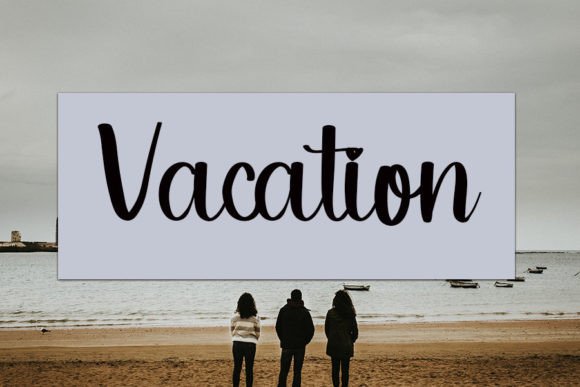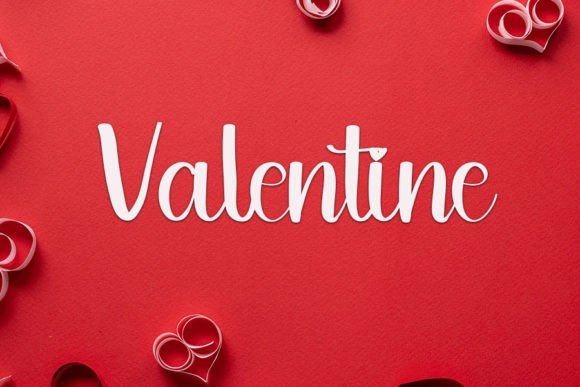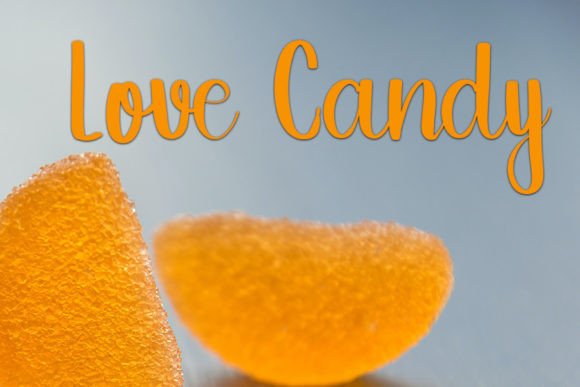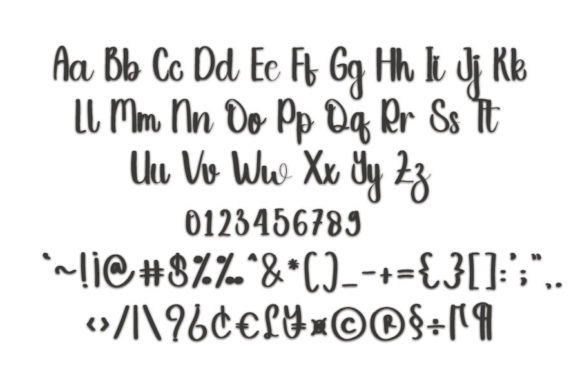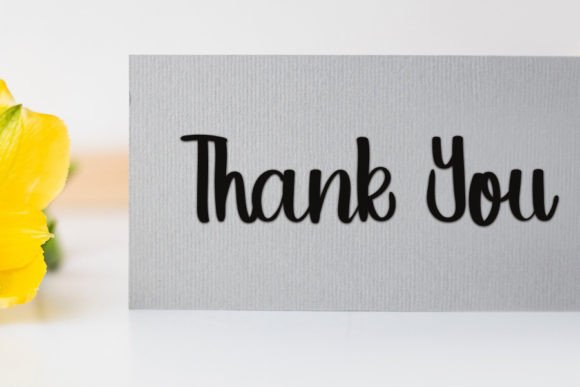
The Perfect Blend of Style and Function: Handwritten Font
Have you ever found yourself stuck in front of a blank page, trying to decide on the perfect font to convey your message? You’re not alone. For many designers, the search for the perfect font is a daunting task, one that can make or break the entire project. But what if I told you there’s a font that can add a touch of elegance and sophistication to any design, without breaking the bank?
Enter the Handwritten Font, a beautiful and versatile font that’s perfect for designers of all levels. This modern handwritten font is inspired by classic calligraphy, with a balanced and varied design that’s sure to add a personal touch to any project. Whether you’re designing a logo, a brochure, or a website, the Handwritten Font is the perfect choice for anyone looking to add a touch of whimsy and personality to their work.
Key Features of Handwritten Font
- Font Style: The Handwritten Font is a script font designed to mimic handwritten text, ideal for creating a personal and informal feel in designs.
- Unique Characteristics: The font features connected letters, subtle flourishes, and natural imperfections that give it a unique, handwritten feel.
Designer Review: Handwritten Font
Overall, I’d say the Handwritten Font is a great addition to any designer’s toolkit. It’s perfect for creating a personal and emotive feel in your designs ✨. The font’s irregularities and imperfections give it a unique, handwritten look that’s hard to replicate with other fonts.
The font’s legibility is also surprisingly good, considering its cursive nature. It’s easy to read, even at smaller font sizes ✨. The font’s versatility is another major plus – it works well for both digital and print designs, from social media posts to business cards.
While the Handwritten Font is great for many applications, there are some limitations to keep in mind ⚠️.
- It can be difficult to adjust the font size without affecting its readability.
- The font’s irregularities can sometimes make it difficult to align text perfectly.
- It may not be the best choice for large blocks of text, as it can be tiring to read.
In conclusion, the Handwritten Font is a great choice for designers who want to add a personal touch to their work ✨. While it has some limitations, its unique look and versatility make it a valuable addition to any design toolkit.
Tips for Getting the Most Out of Handwritten Font
Experiment with different font sizes and styles to achieve a unique look. Use handwritten font for headings or titles to add a personal touch. Combine handwritten font with other fonts to create a visually appealing contrast.
Handwritten font is ideal for:
- Blog post headings and titles
- Social media graphics and captions
- Personalized gift tags and cards